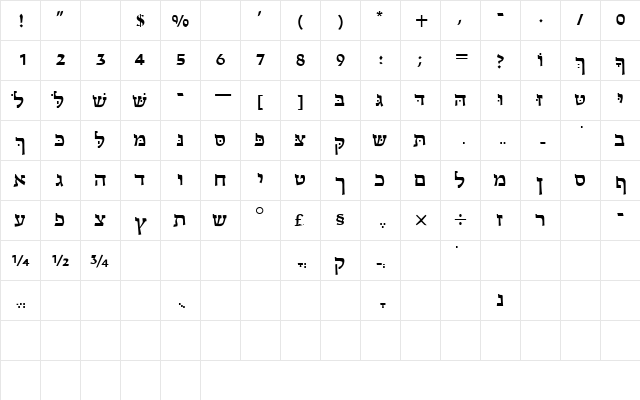
ZayinSSK Regular
Design Context for ZayinSSK Typeface
ZayinSSK is a composed and adaptable typeface that performs quietly and consistently across a wide range of design contexts.